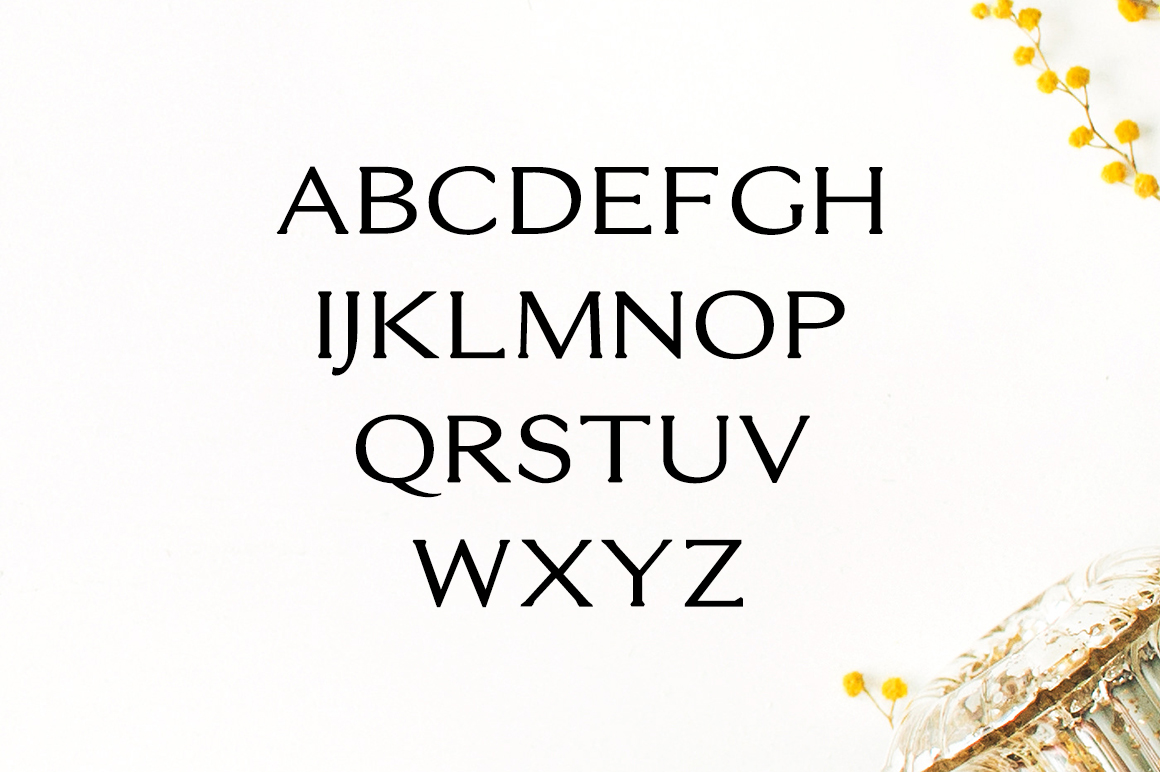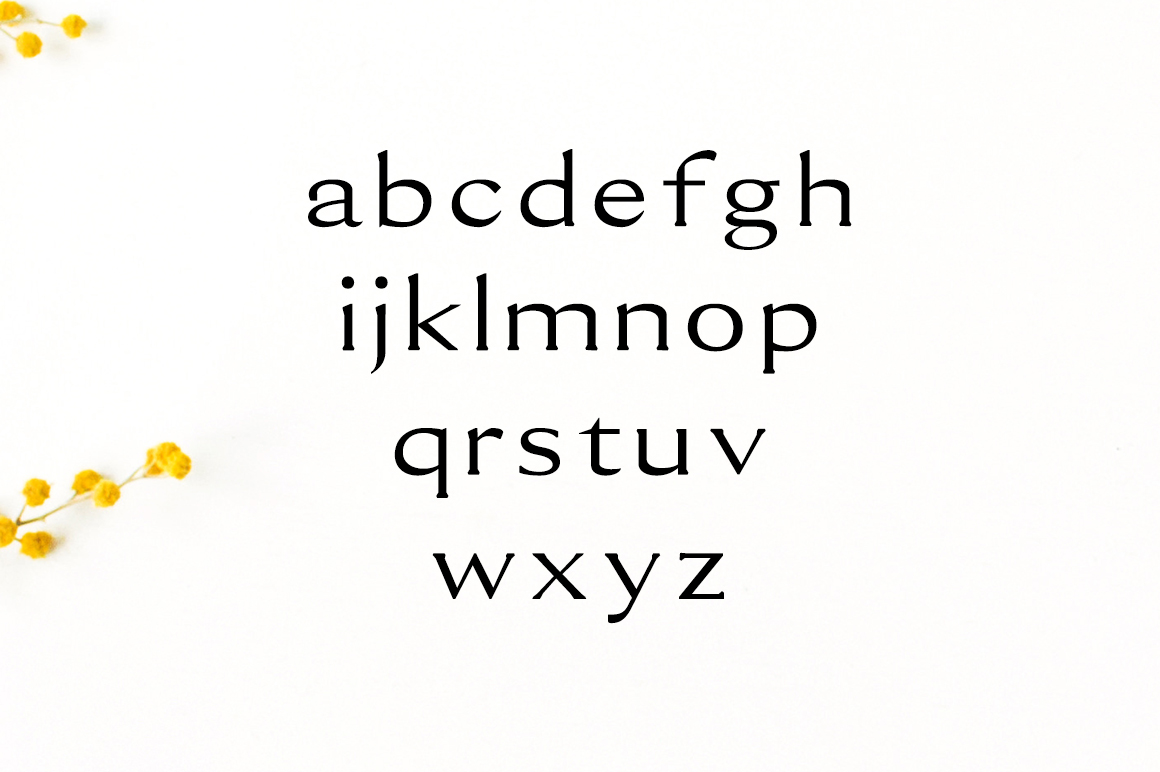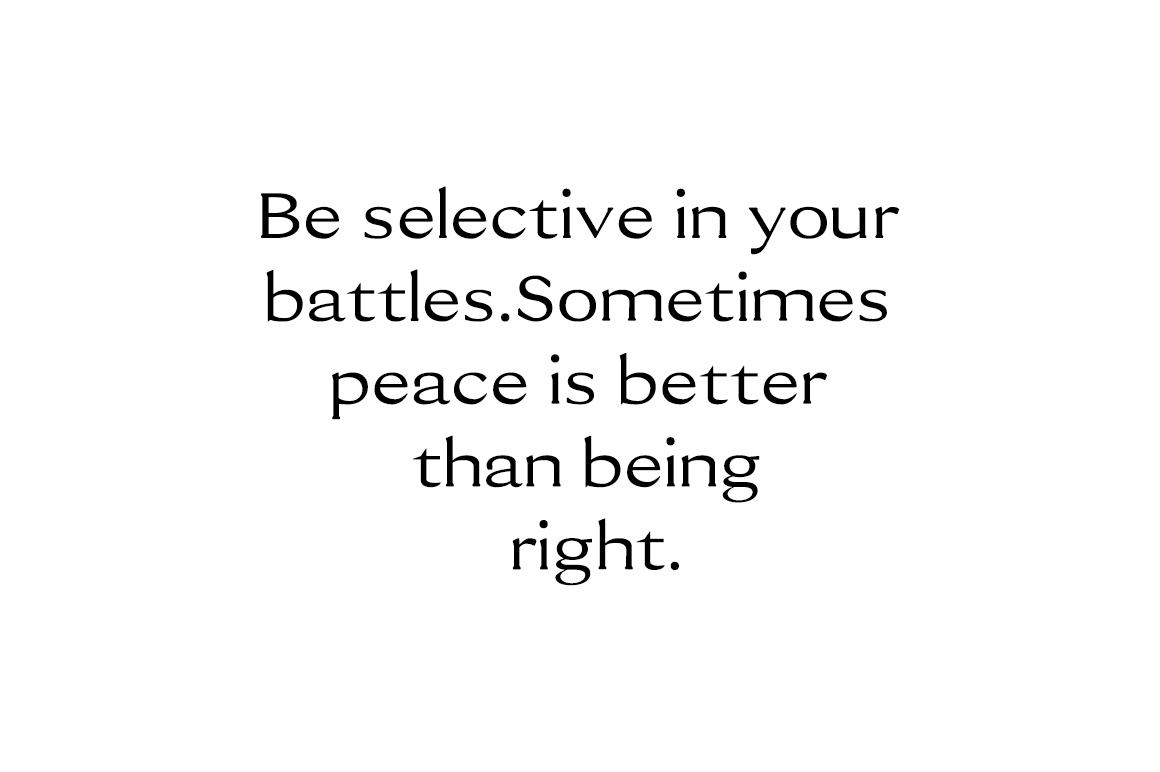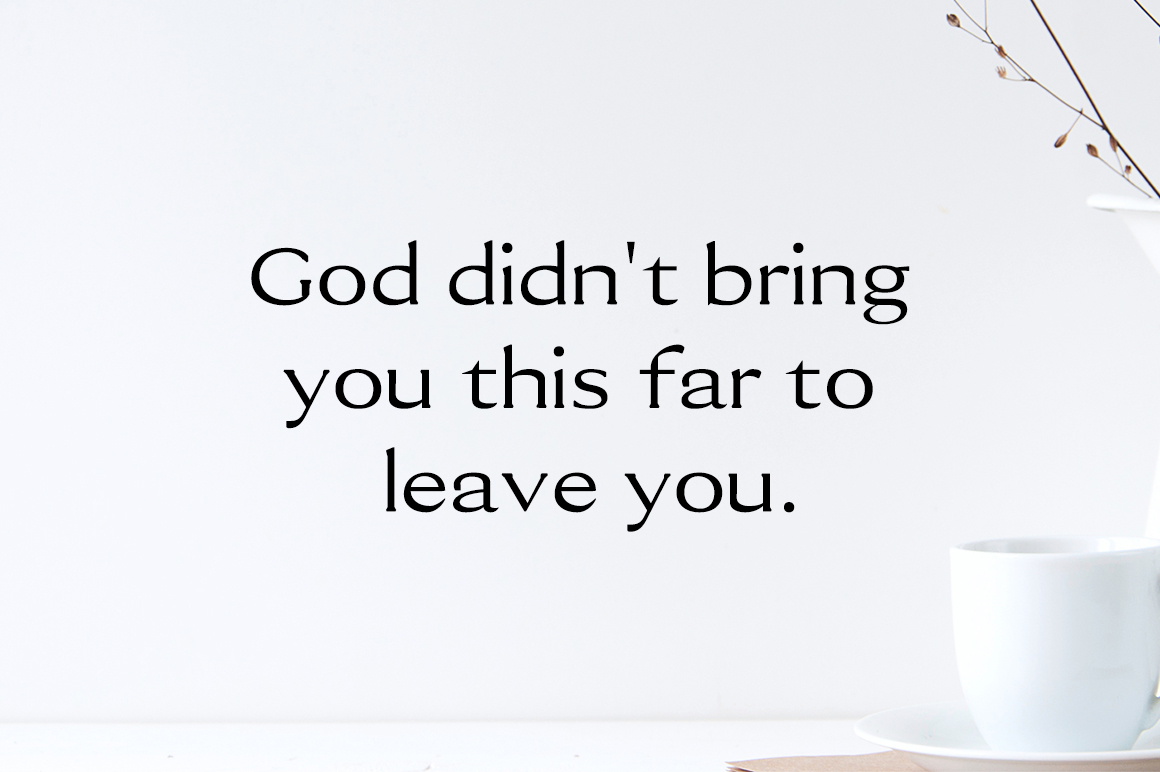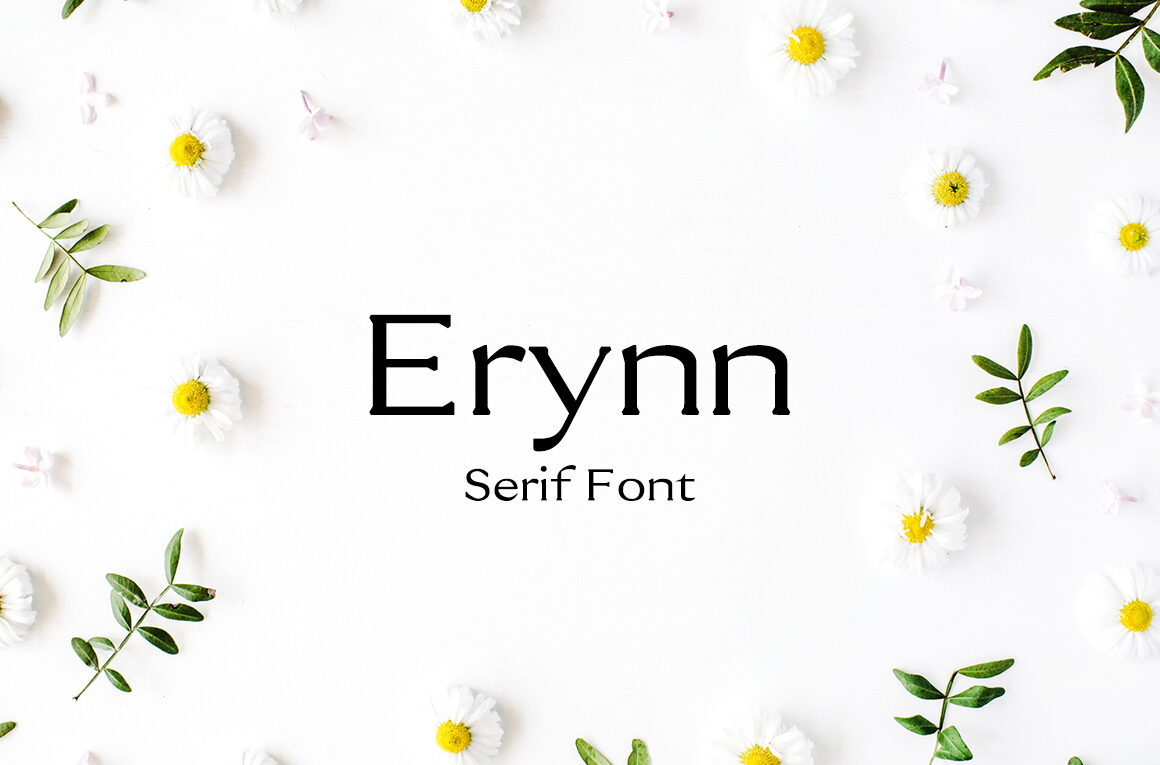
Erynn Font: The Epitome of Clean Minimalism for Your Designs
In the realm of typography, fonts play a pivotal role in conveying messages, evoking emotions, and enhancing the aesthetic appeal of designs. Among the myriad of fonts available, Erynn stands out as a beacon of simplicity and elegance. This clean minimal single serif font has been gaining traction among designers and crafters for its straightforward yet impactful design. In this article, we’ll delve into the world of Erynn font, exploring its characteristics, versatility, and the myriad of projects it can elevate.
The Essence of Erynn Font
Erynn is characterized by its clean lines, minimalistic approach, and a single serif that adds a touch of sophistication without overpowering the overall simplicity. This font is a perfect blend of modernity and classic typography, making it a versatile choice for a wide array of design projects. Whether you’re working on a website, a logo, a brochure, or any digital or print material, Erynn’s subtle elegance can enhance your design’s readability and aesthetic appeal.
Why Choose Erynn?
- Simplicity: Erynn’s minimalistic design makes it incredibly easy to read, even at smaller sizes. This is particularly beneficial for designs that require a lot of text, ensuring that your message is conveyed clearly without overwhelming the reader.
- Versatility: The clean and simple nature of Erynn allows it to adapt seamlessly to various design contexts. From corporate and professional to creative and playful, Erynn can complement a broad spectrum of design styles.
- Weight: The subtle weight of Erynn adds depth to your designs without overpowering them. This balance ensures that your text is legible and visually appealing, making it perfect for headings, body text, and everything in between.
Applications of Erynn Font
Erynn’s adaptability makes it suitable for a vast range of projects, including but not limited to:
- Web Design: Erynn’s readability on digital screens makes it an excellent choice for websites and mobile applications, ensuring a pleasant user experience.
- Branding and Logos: The font’s simplicity and elegance can help in creating memorable and impactful logos that stand out.
- Print Materials: From brochures and magazines to business cards and posters, Erynn can elevate your print designs with its clean and professional look.
- Digital Art and Crafting: For crafters and digital artists, Erynn can serve as a beautiful addition to digital journals, planners, and art pieces, adding a touch of sophistication.
Erynn font, with its clean minimalism and single serif detail, offers a refreshing typographic solution for designers and crafters. Its simplicity, versatility, and aesthetic appeal make it an excellent choice for a wide range of projects. By incorporating Erynn into your design toolkit, you can enhance the readability, elegance, and overall impact of your work. So, why wait? Download Erynn today and discover the potential of minimalistic typography in your designs.